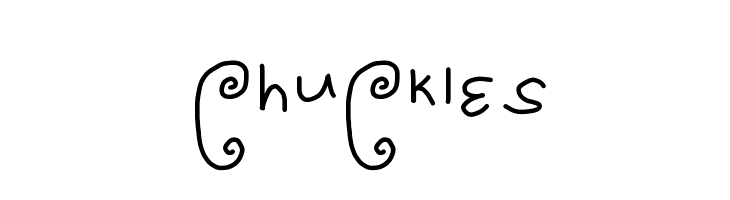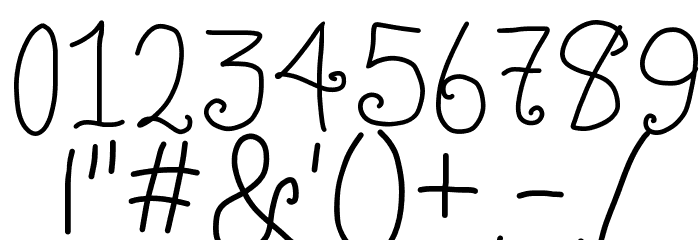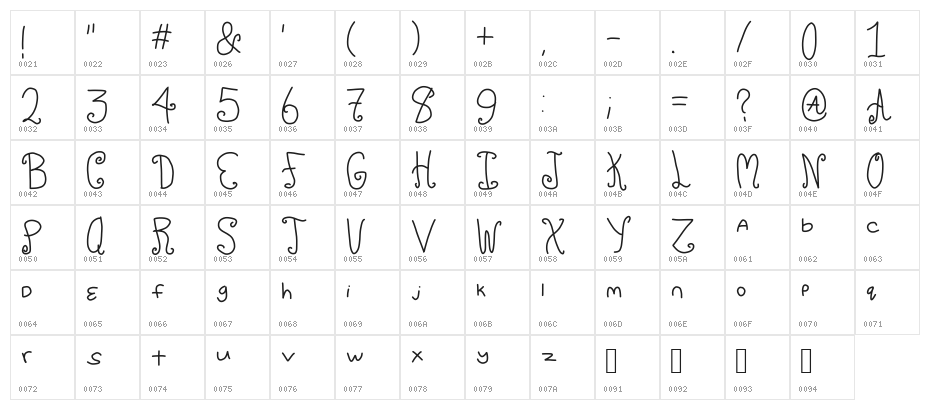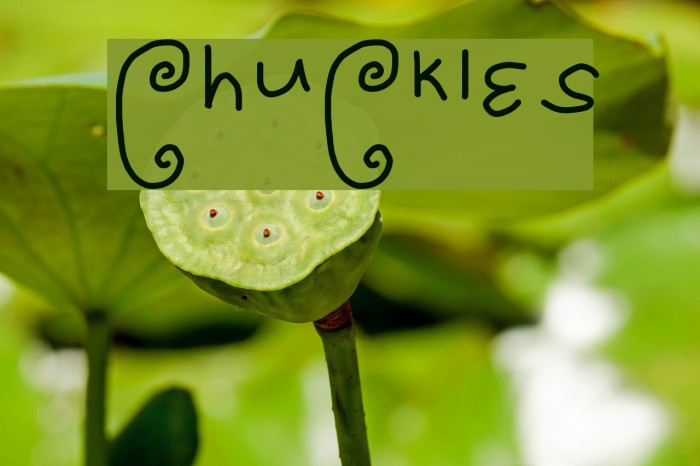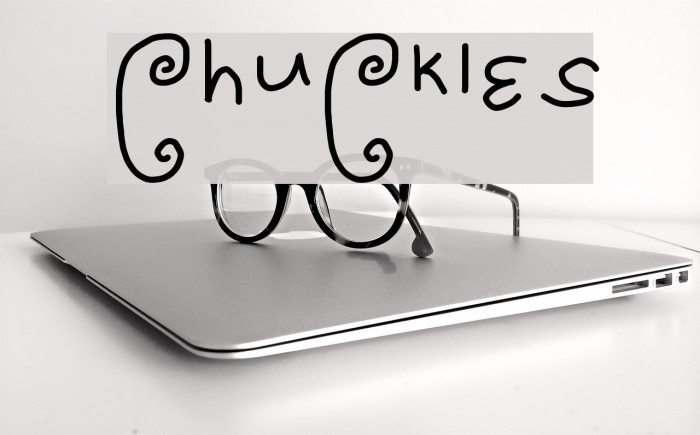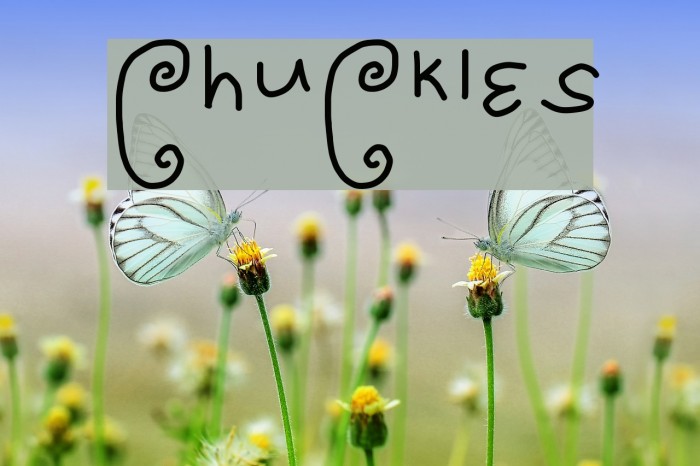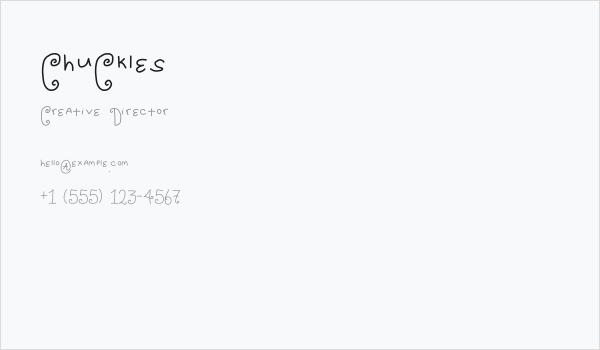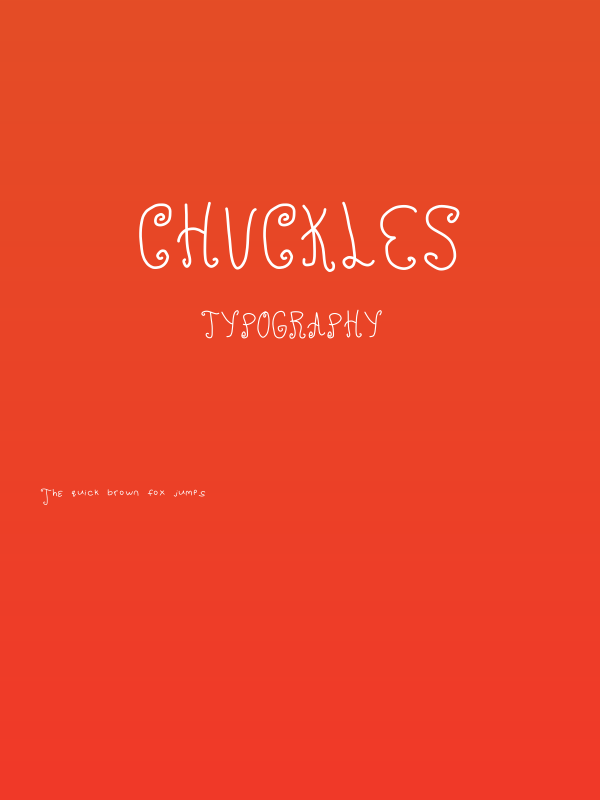
ChuCkles Font
ChuCkles Description
This playful and whimsical font features a hand-drawn, cartoonish style with a lively and energetic feel. The uppercase letters are characterized by their quirky, uneven lines and occasional swirls, giving them a fun and informal appearance. The lowercase letters maintain a similar playful aesthetic, with rounded edges and a slightly irregular baseline that adds to the font's charm. The numerals and special characters continue this theme, with a consistent, light-hearted design that complements the alphabet. This font is perfect for projects that require a touch of humor and creativity, such as children's books, comic strips, or playful branding.
| Proposed Projects | Ideal for children's books, comic strips, playful branding, and creative projects. |